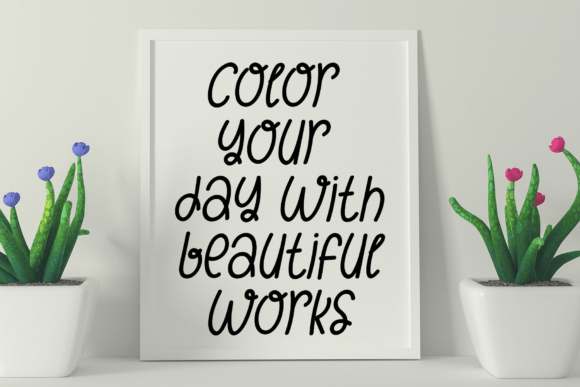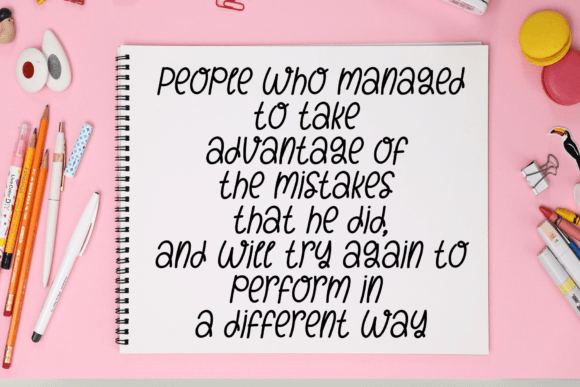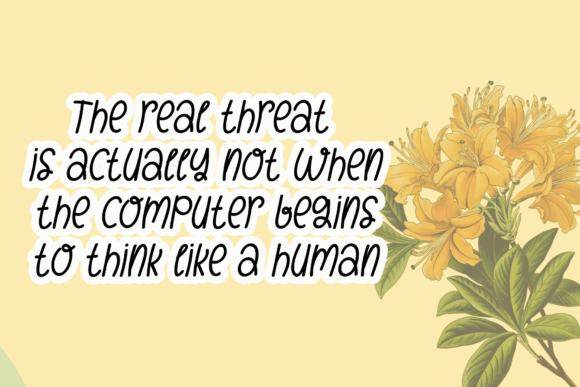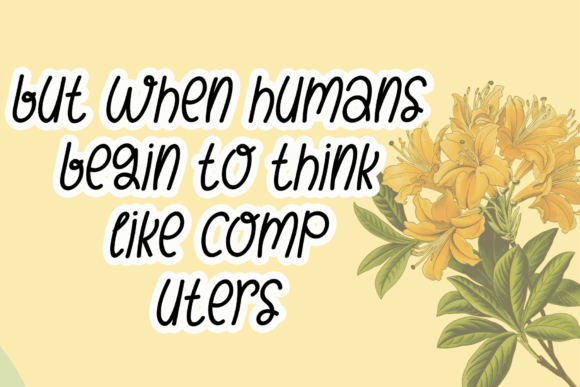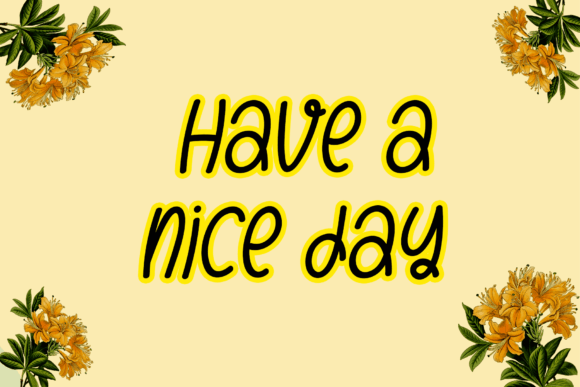
Something Flower Font
“Something Flower” is not just a font; it’s a magical spell woven into letters, designed with meticulous care to infuse elegance into your creations. Its handwritten charm carries a touch of enchantment, making it the perfect choice for a variety of design purposes. Whether you’re curating content for Instagram or embarking on DIY projects that require calligraphic finesse, Something Flower transforms every creative concept into a masterpiece of artistry.
Imagine your social media posts on Instagram adorned with the graceful strokes of Something Flower, each letter blooming like a flower in a magical garden of creativity. Picture your DIY projects, each word crafted in this font, becoming more than just a creation; they become works of art, reflecting your passion and skill. Something Flower isn’t just a typographic choice; it’s an invitation to add a touch of sophistication and allure to your designs.
The font’s magical handwritten style isn’t merely about aesthetics; it’s about emotion and expression. Something Flower captures the essence of creativity and elegance, making your designs resonate with viewers on a profound level. It becomes the visual language of your ideas, translating them into a captivating visual story.
Something Flower is not just a font; it’s a transformative tool. It turns ordinary designs into extraordinary experiences, infusing them with an aura of enchantment and creativity. It’s more than just letters on a canvas; it’s the echo of your artistic vision, the fingerprint of your creativity.
In a world where visual content reigns supreme, Something Flower stands out as a beacon of creativity and sophistication. When you choose Something Flower for your designs, you’re not just selecting a font; you’re embracing a realm of artistic possibilities. Let Something Flower be the brush that paints your imagination and the handwritten touch that turns your creative dreams into mesmerizing reality. With Something Flower, every idea blossoms into a true piece of art, leaving a lasting impression on anyone who experiences its magic.